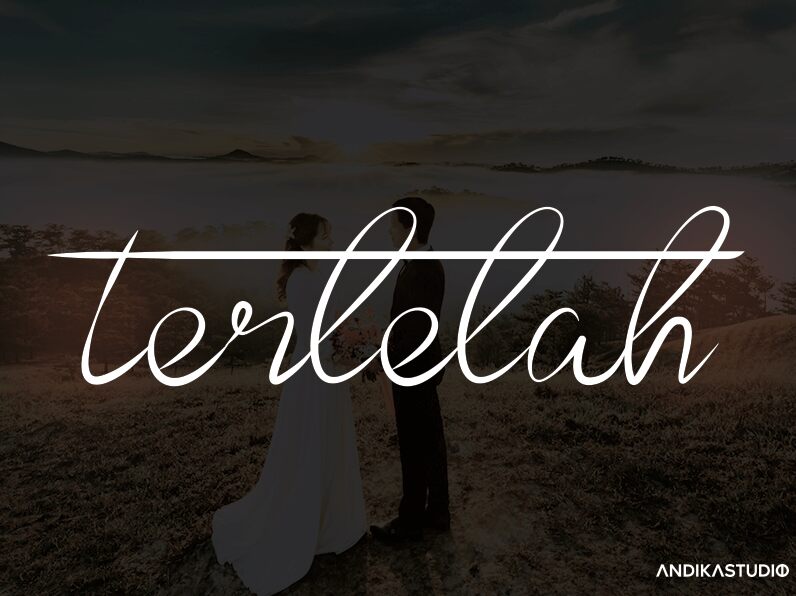
Terlelah
Terlelah, a beautifully crafted handwritten font by Lontong Lodeh, is the perfect choice for all your creative projects! The light weight of this font adds a delicate touch to any design, making it ideal for creating invitations, greeting cards, and other stationery items. Terlelah's playful and whimsical style also makes it a great option for designing logos or branding materials that require a personal touch. Whether you're looking to add charm to your website or create stunning visuals for social media, Terlelah is the perfect semi-bold font typeface for bringing your ideas to life.